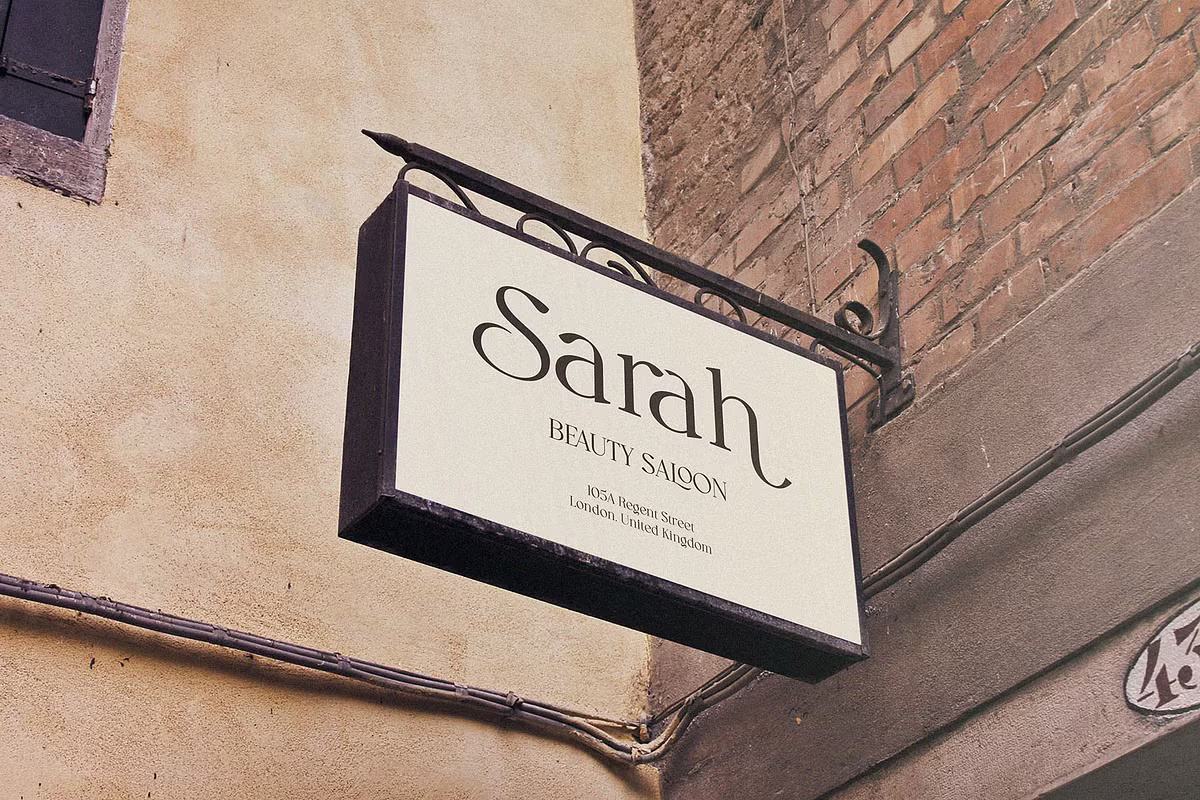
Runtime Font
Runtime is an elegant and sophisticated display serif font, perfect for making a statement in headings, logos, branding, magazines, product packaging, and invitations. With its clean lines and smooth curves, Runtime adds a touch of class to any project.